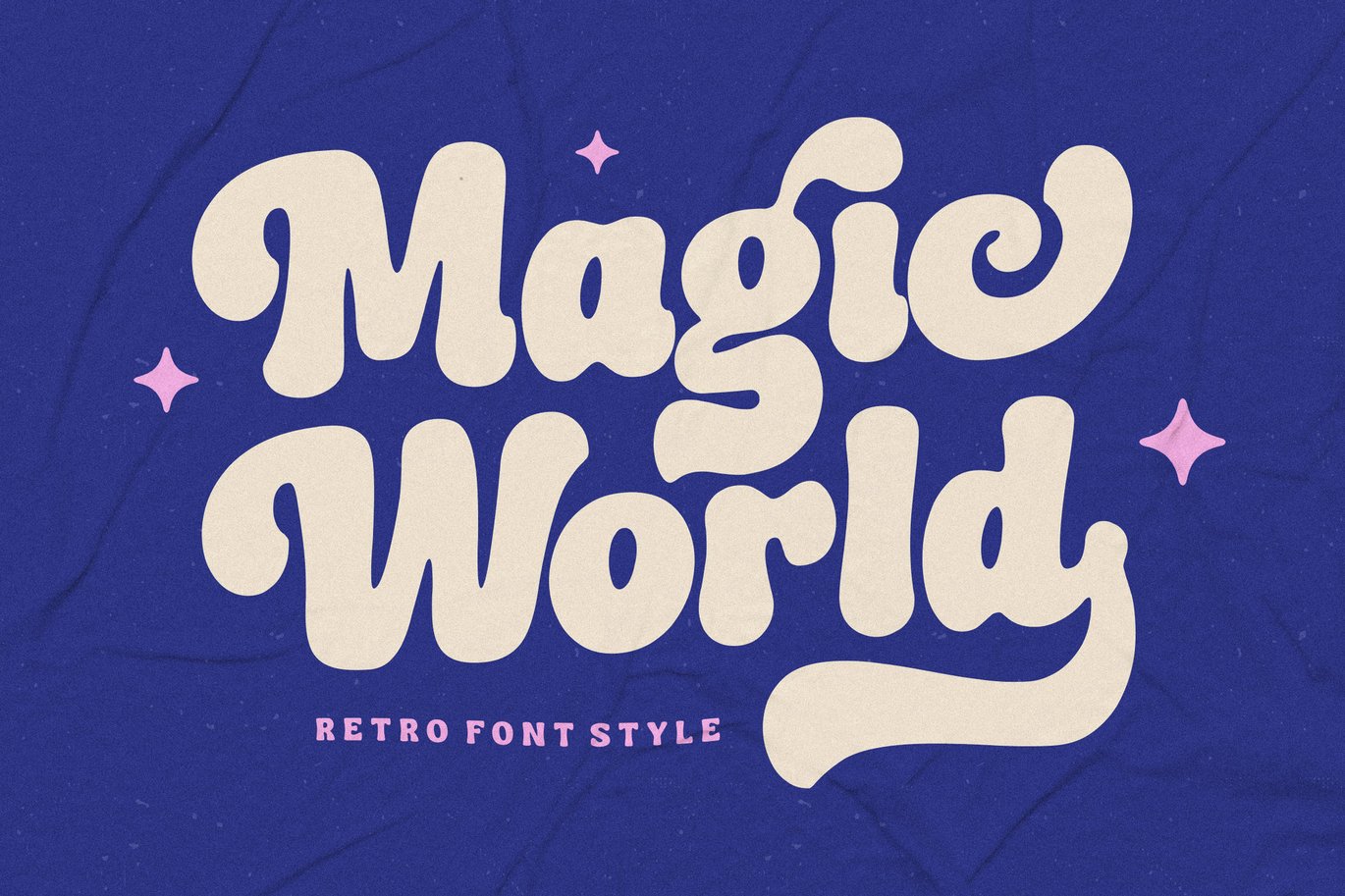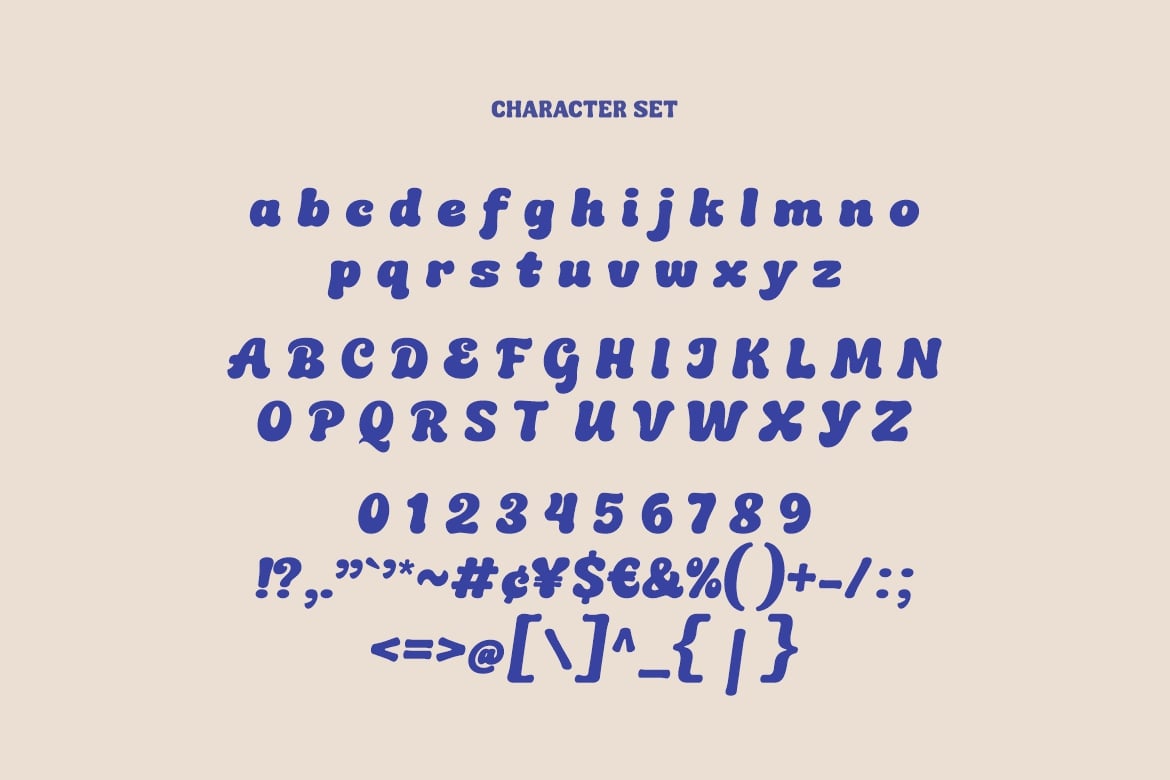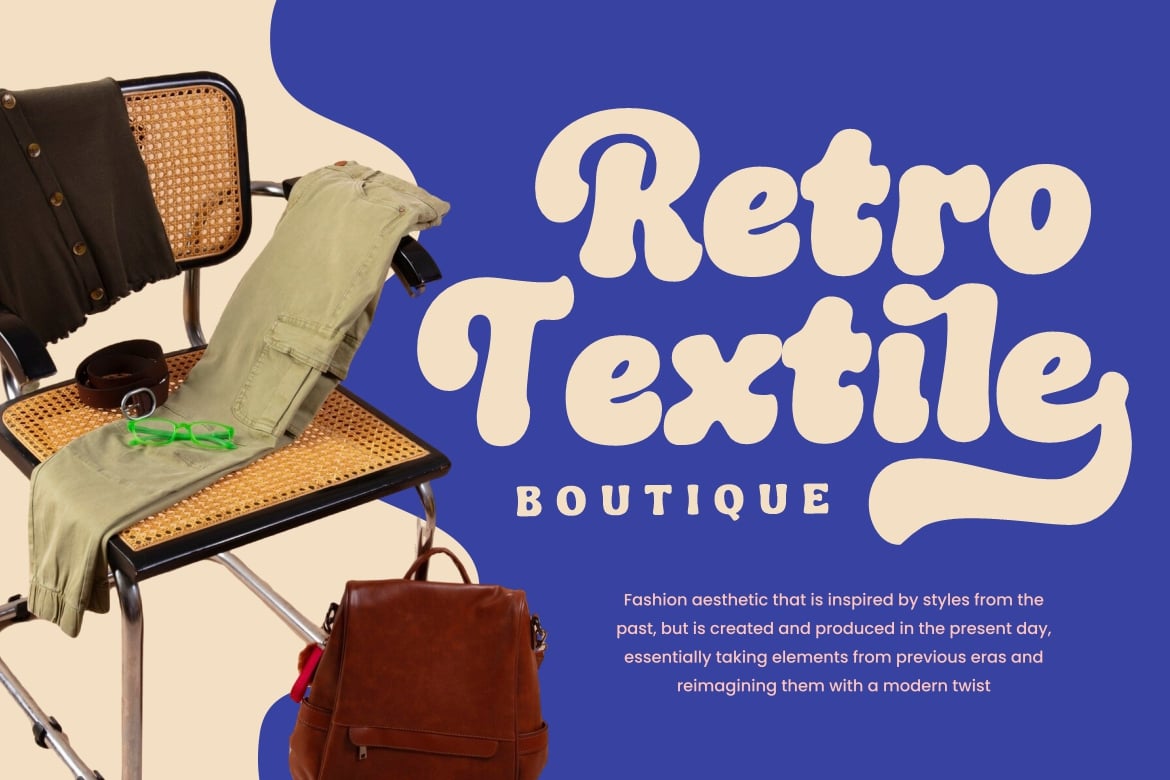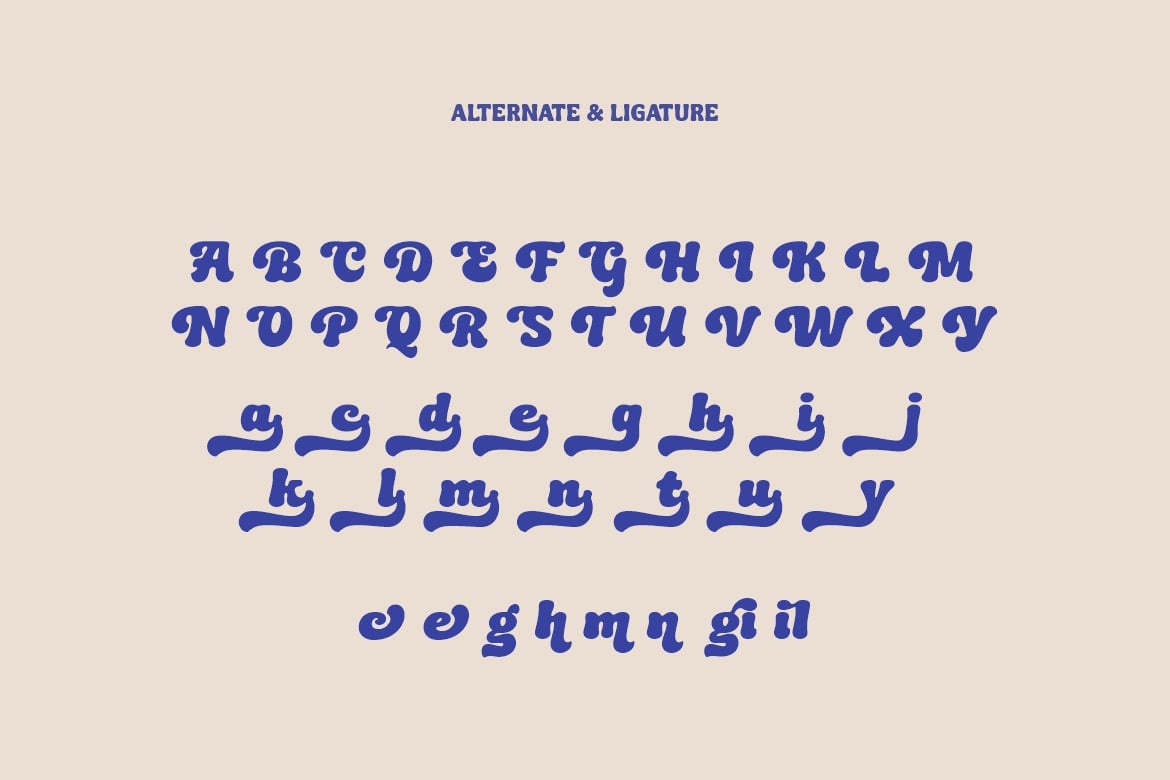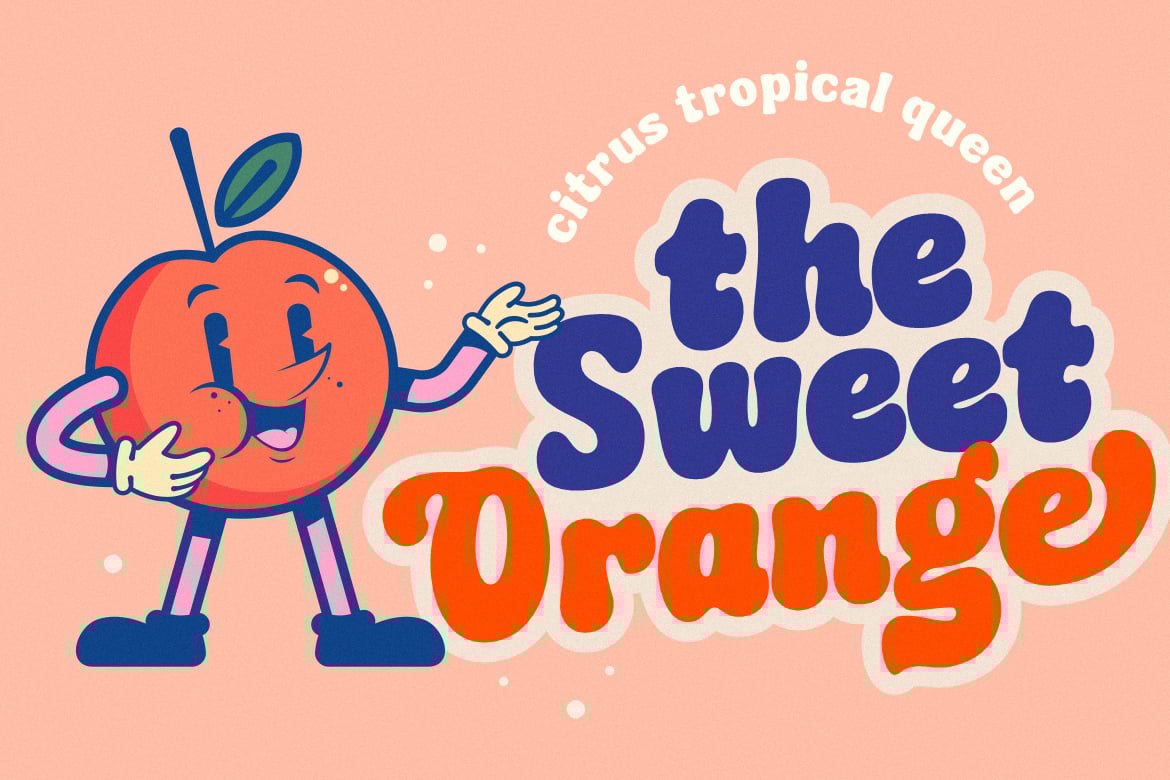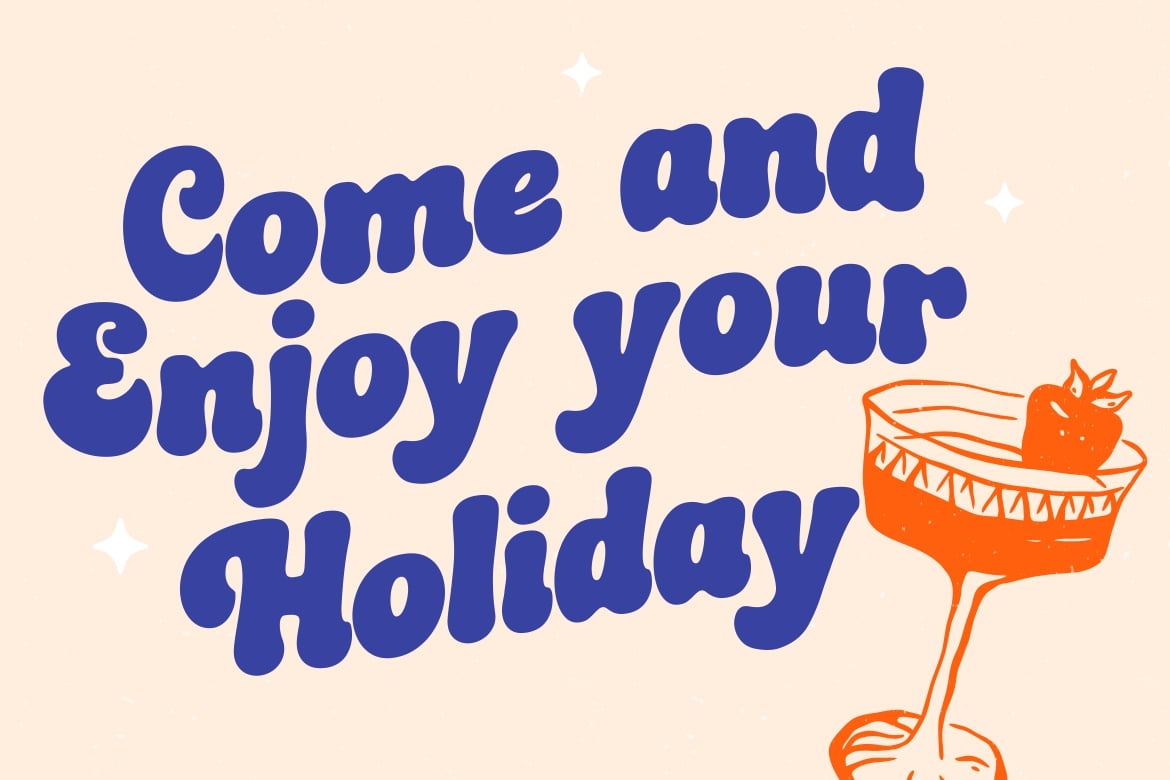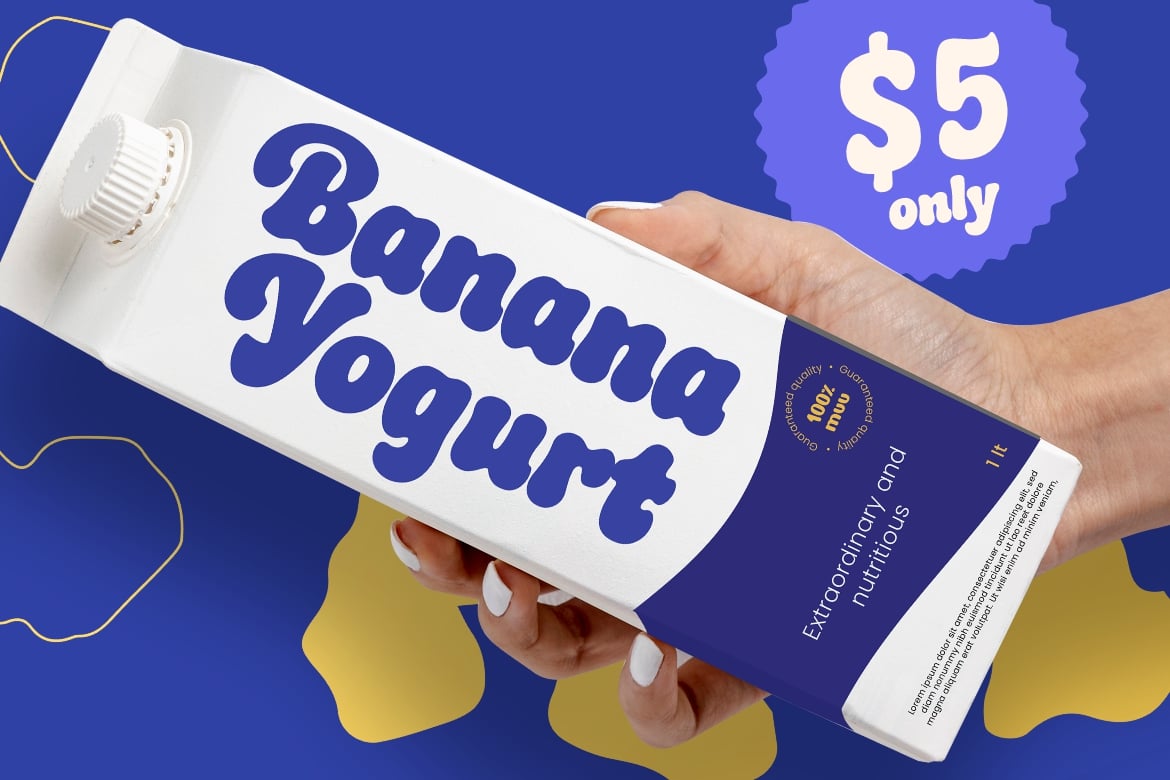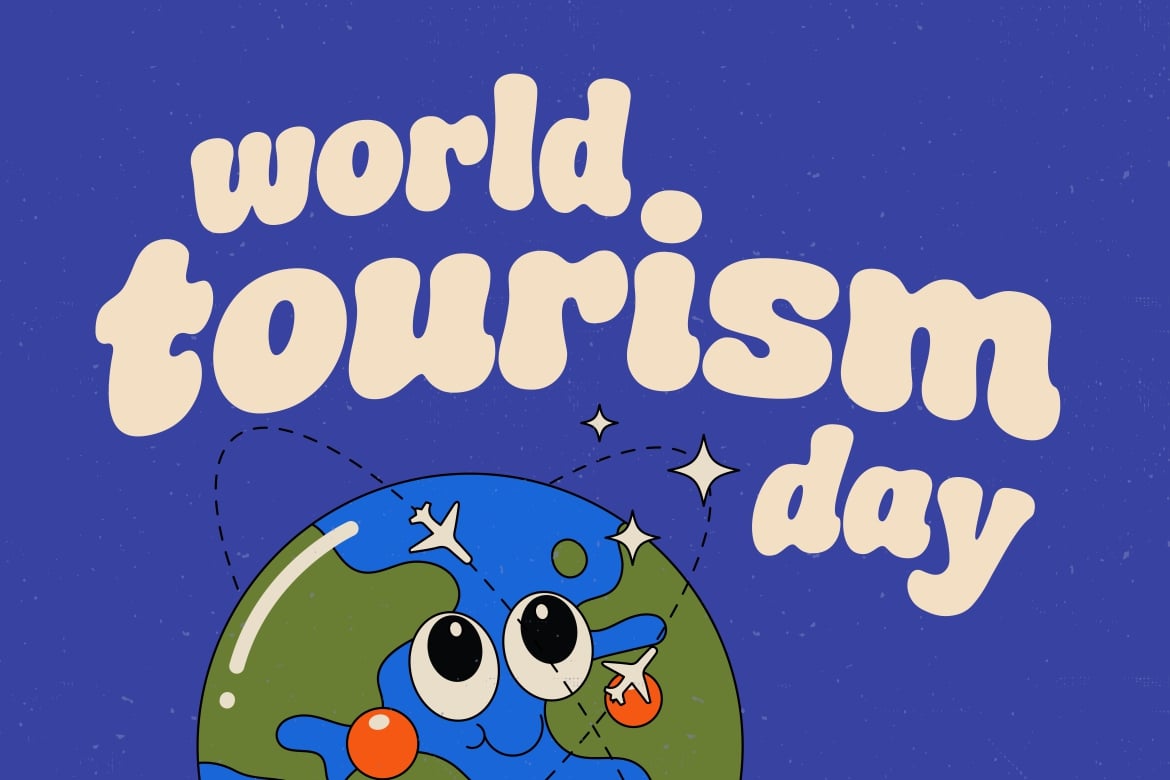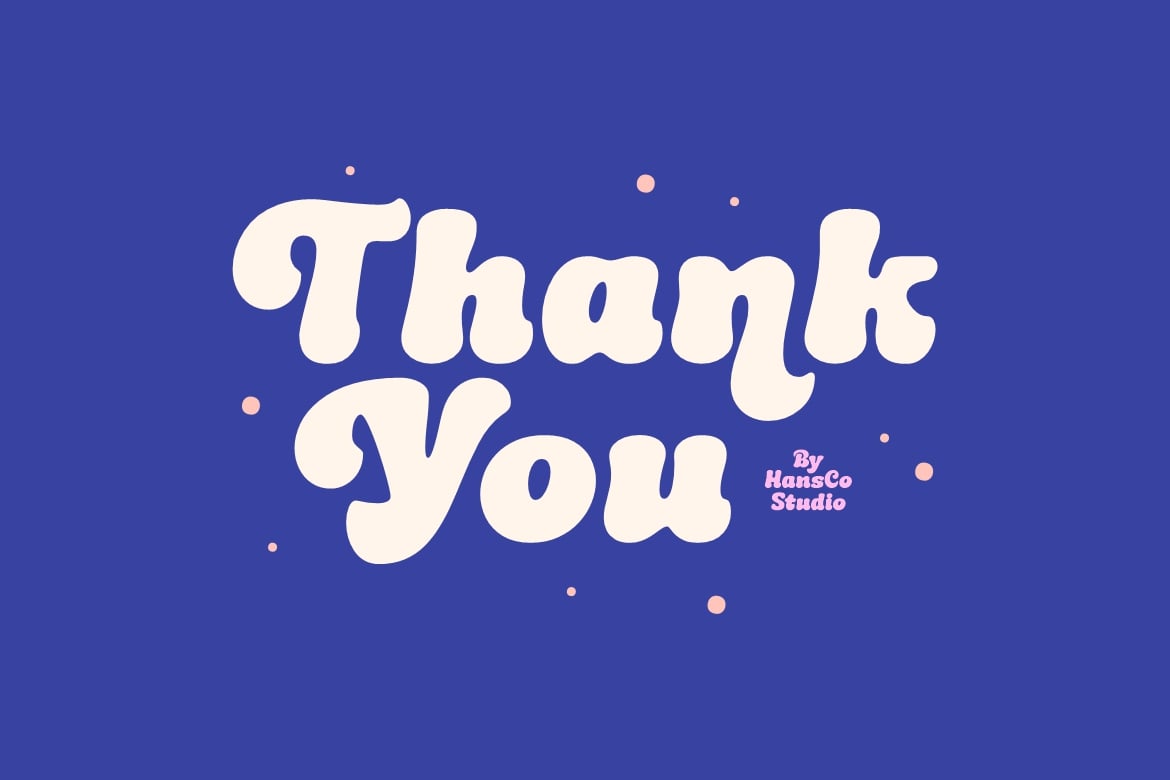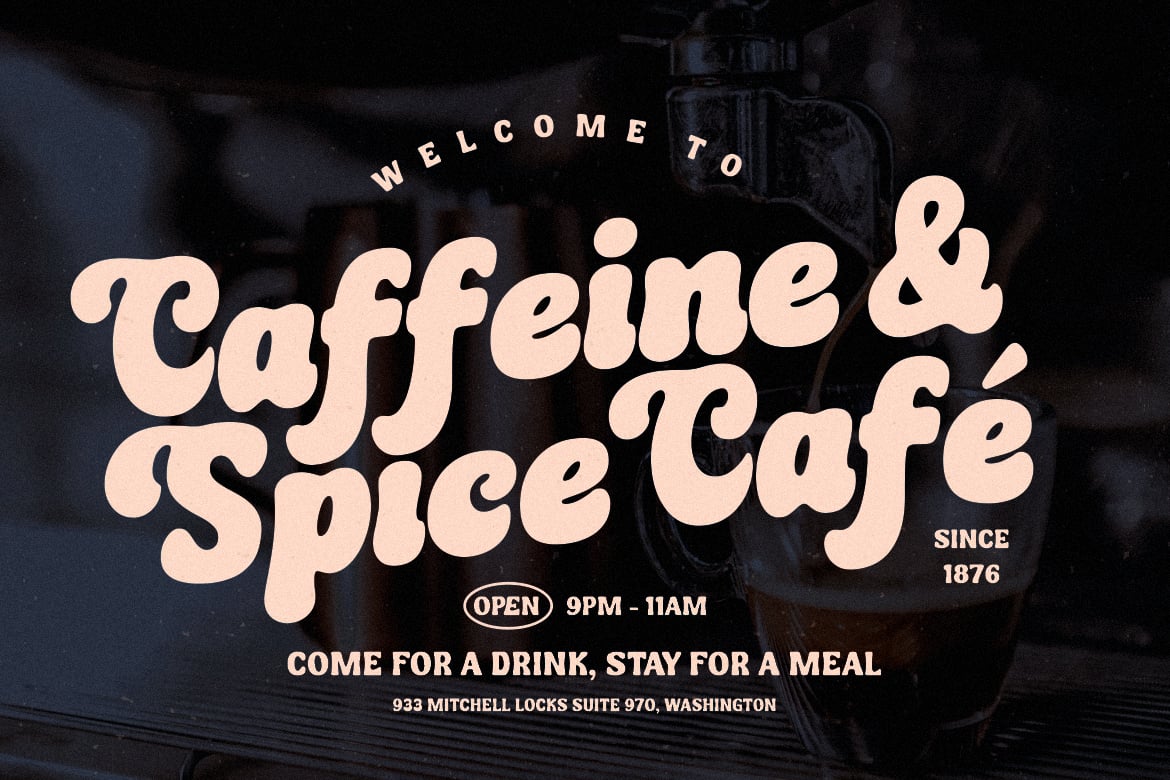
Magic World Font
Magic World Font is a bold retro script font style with rounded touch. Equipped with all complete characters ranging from uppercase letters, lowercase letters, numbers, punctuation marks and multi-lingual support, this font is ready to be used in any project. Very suitable for logotype, Stickers, Packaging design, Cricut Project, headlines, brand identity, posters, magazines, books, YouTube, Instagram, websites, Canva, Corjl or any of your creative design projects. Use this Magic World Font to add that special modern retro touch to any design idea you can think of!
- Alternate Character